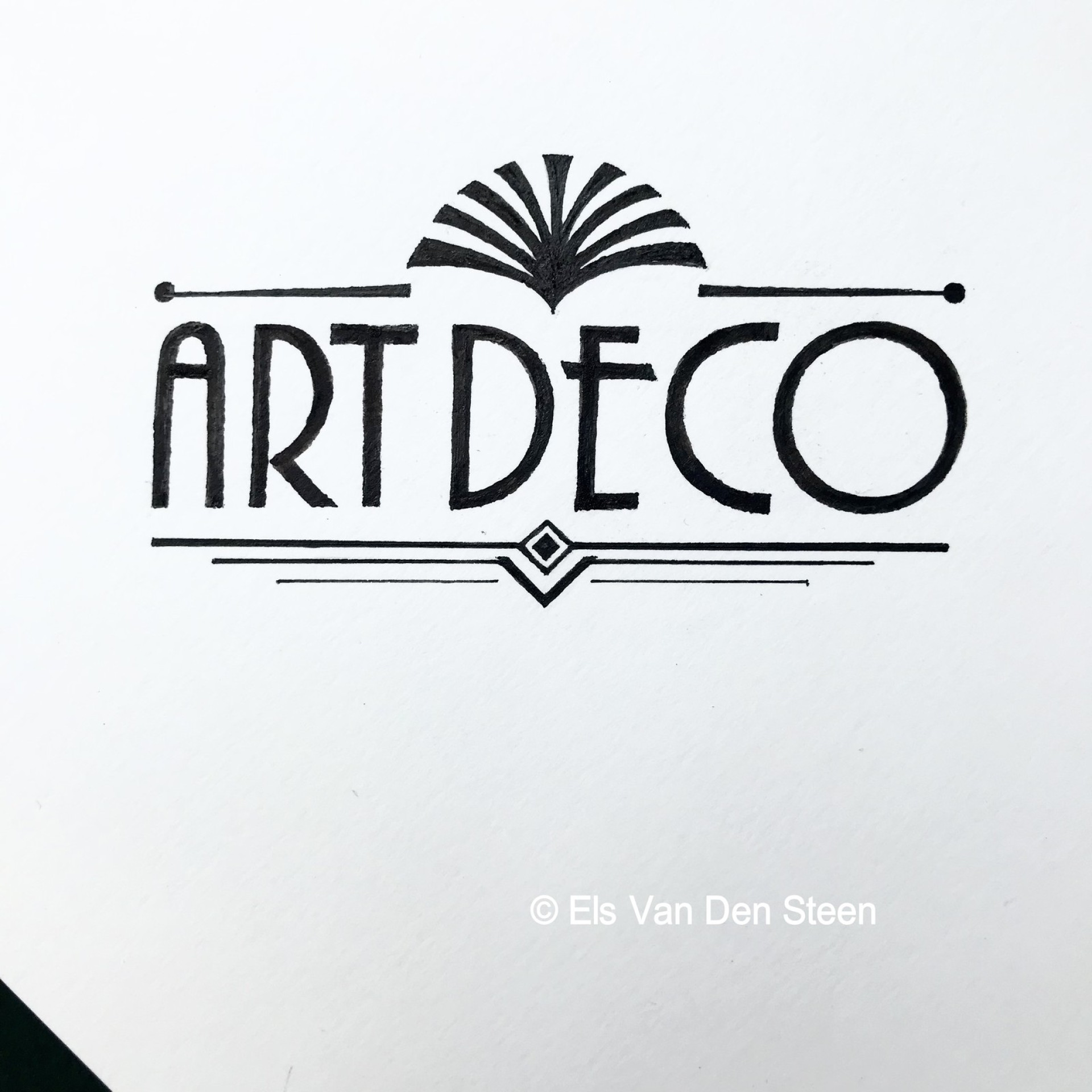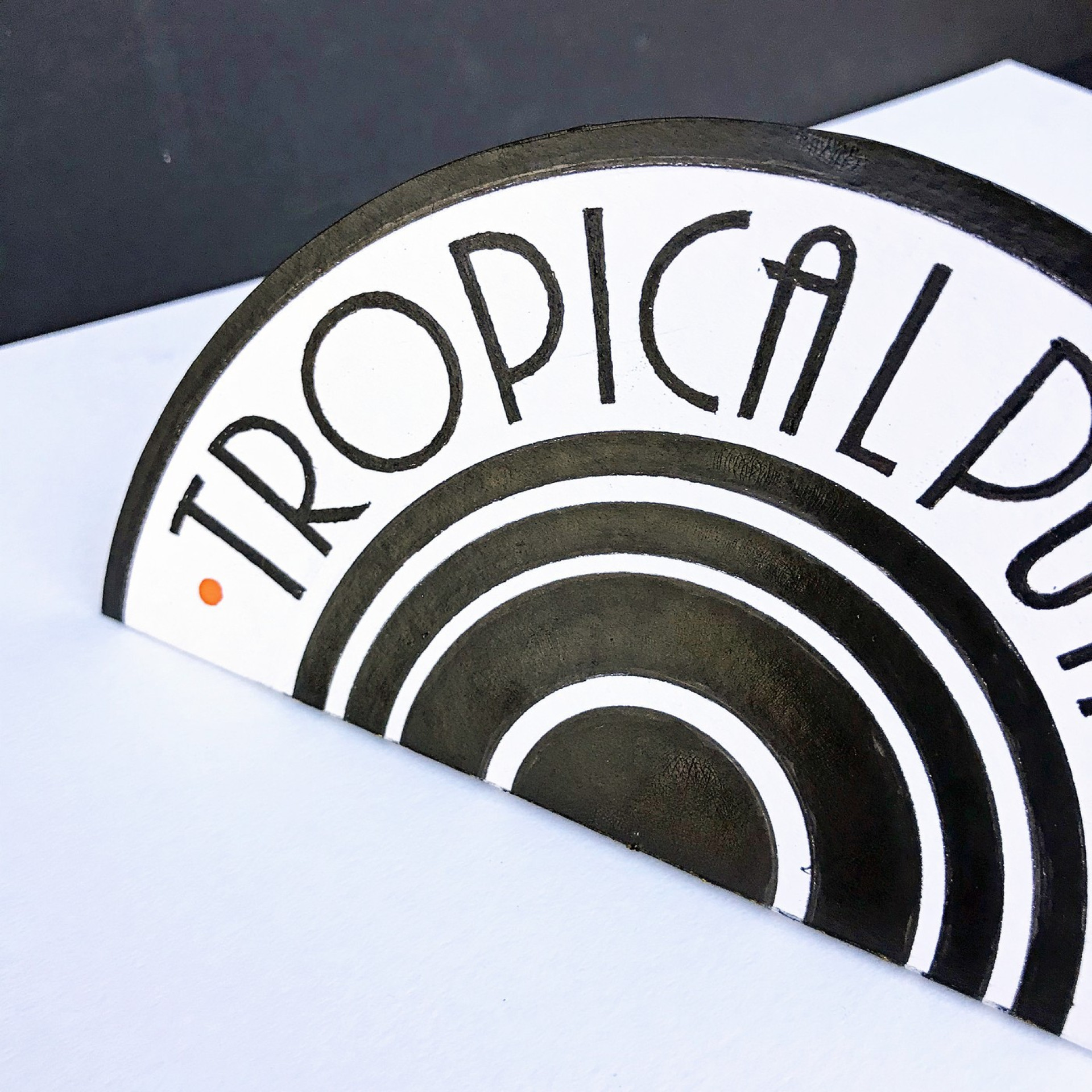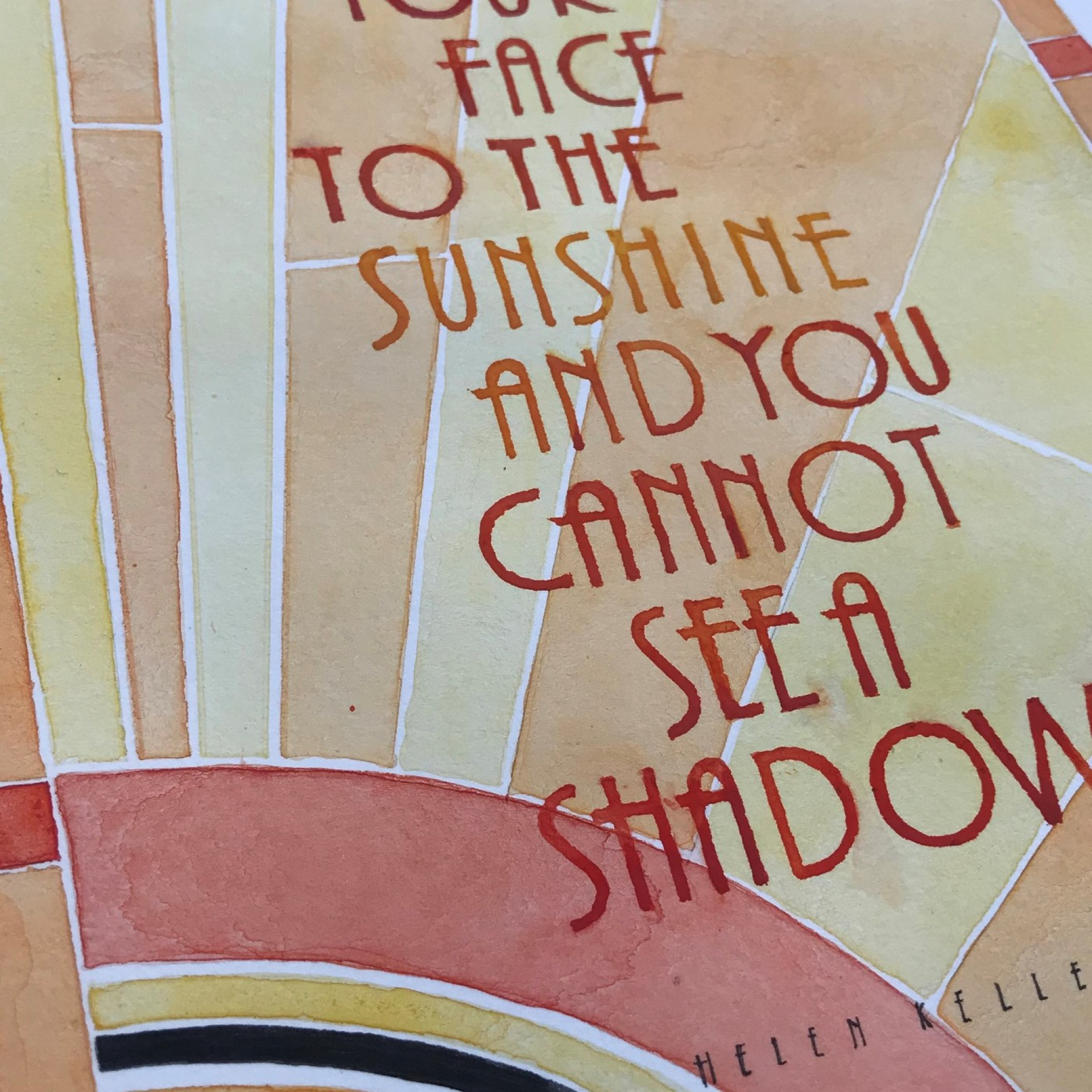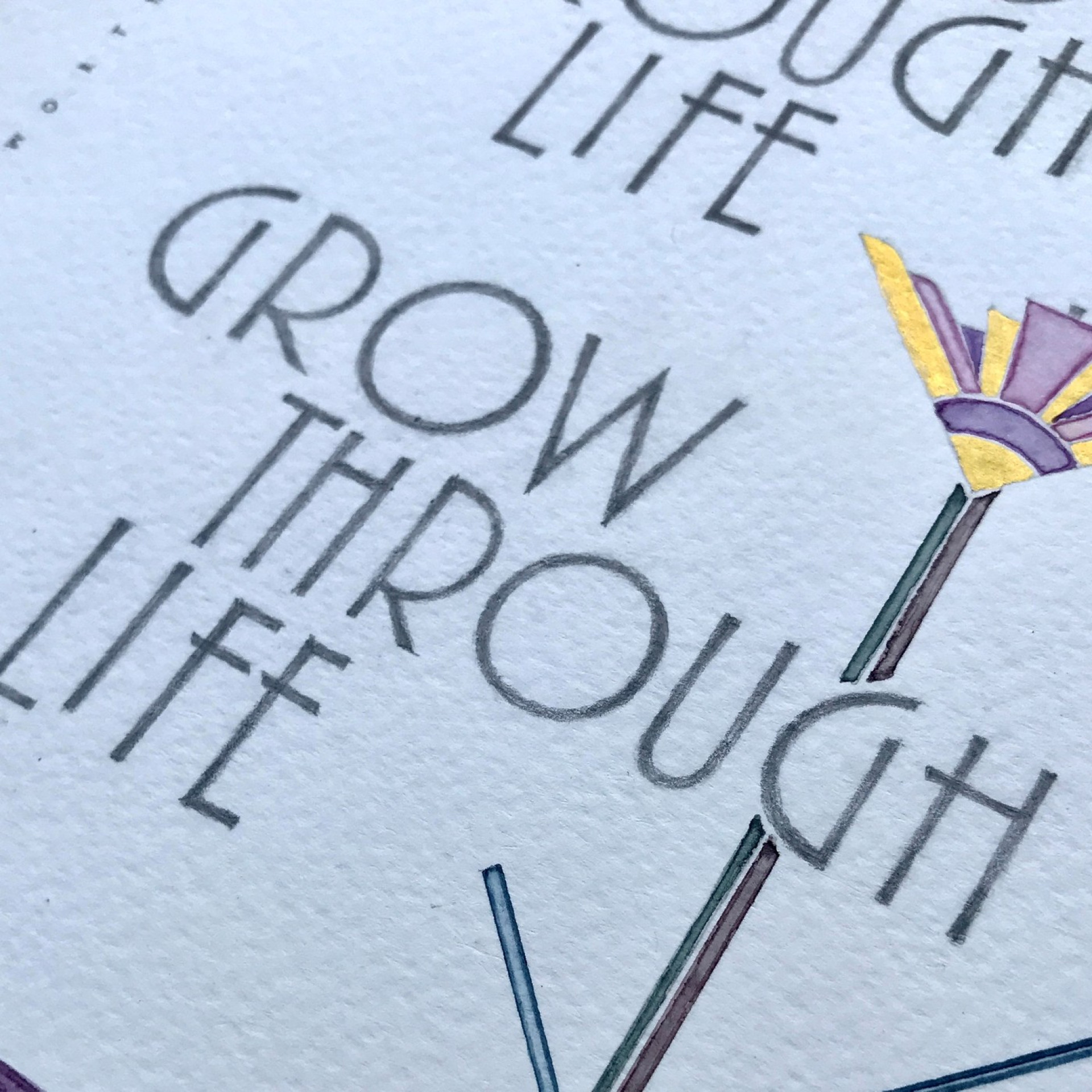
Art Deco Lettering in the spirit of the Roaring Twenties
The geometric, pared down Art Deco style, reflecting the modern age of industrial power, confidence and optimism, flourished in Europe and in the United States during the 1920s and 1930s. This workshop is an introduction to Art Deco Lettering and Design from this era. Art Deco Capitals, based on the circle and the straight line, are highly legible and create a stylish impression. These streamlined letters are written with mono-line writing tools which makes them straightforward and fun to write.
In this workshop we practised techniques for drawing the letterforms with different writing tools and we explored textures and simple layouts. As the day progressed, we looked at some of the popular Art Deco design motifs and combined these with our lettering to create projects with an Art Deco flavour.
Nicola Dunn reported "I've always loved the images of the Art Deco period and particularly their revival in late 60's and early 70's fashion and L.P. covers. Els van den Steen took us through the history of the development of this style when it took over from Art Nouveau at the end of the 19th Century. We covered several different styles of lettering as well as a variety of decorative forms that would naturally accompany it, including simple techniques to reproduce repetitive patterns. We certainly covered a lot of ground in one day and it was a lot of fun too."